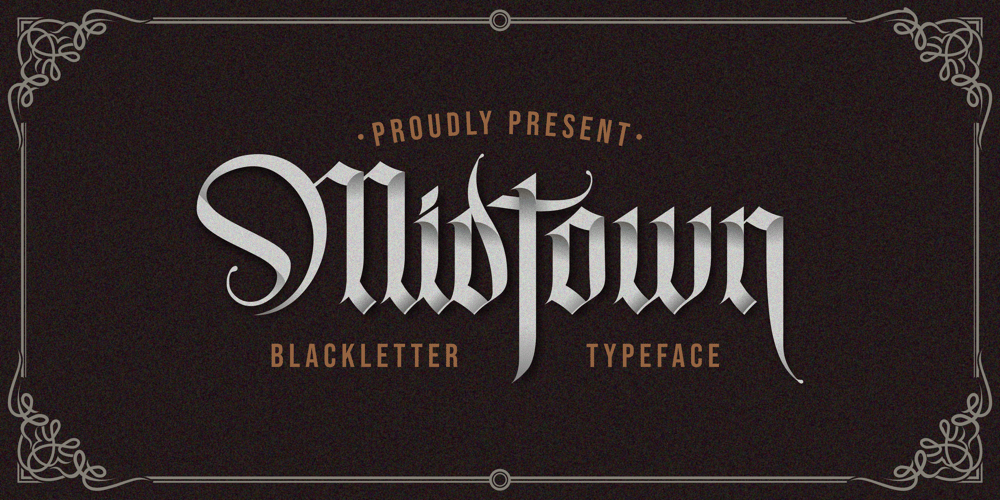
Midtown Black Font Family was designed by Ibnu Utomo and published by Omotu. Midtown Black contains 2 styles and family package options. Midtown! A blackletter font with 2 styles, regular and roughed. Midtown font is perfect for logos, apparel, T-shirt, Hoodie, product packaging, or anything else.Whats Include? Opentype support Multilingual support PUA encoded Features: uppercase, lowercase, numeral, punctuation, multilanguage, alternates, stylist set. Accessible in the Adobe Illustrator Glyphs panel, or under Stylistic Alternates in the Adobe Photoshop OpenType menu, Adobe InDesign, Corel Draw, even work on Microsoft Word Thanks for looking, and I hope you enjoy it!Please don’t hesitate to drop me a message if you have any issues or queries.